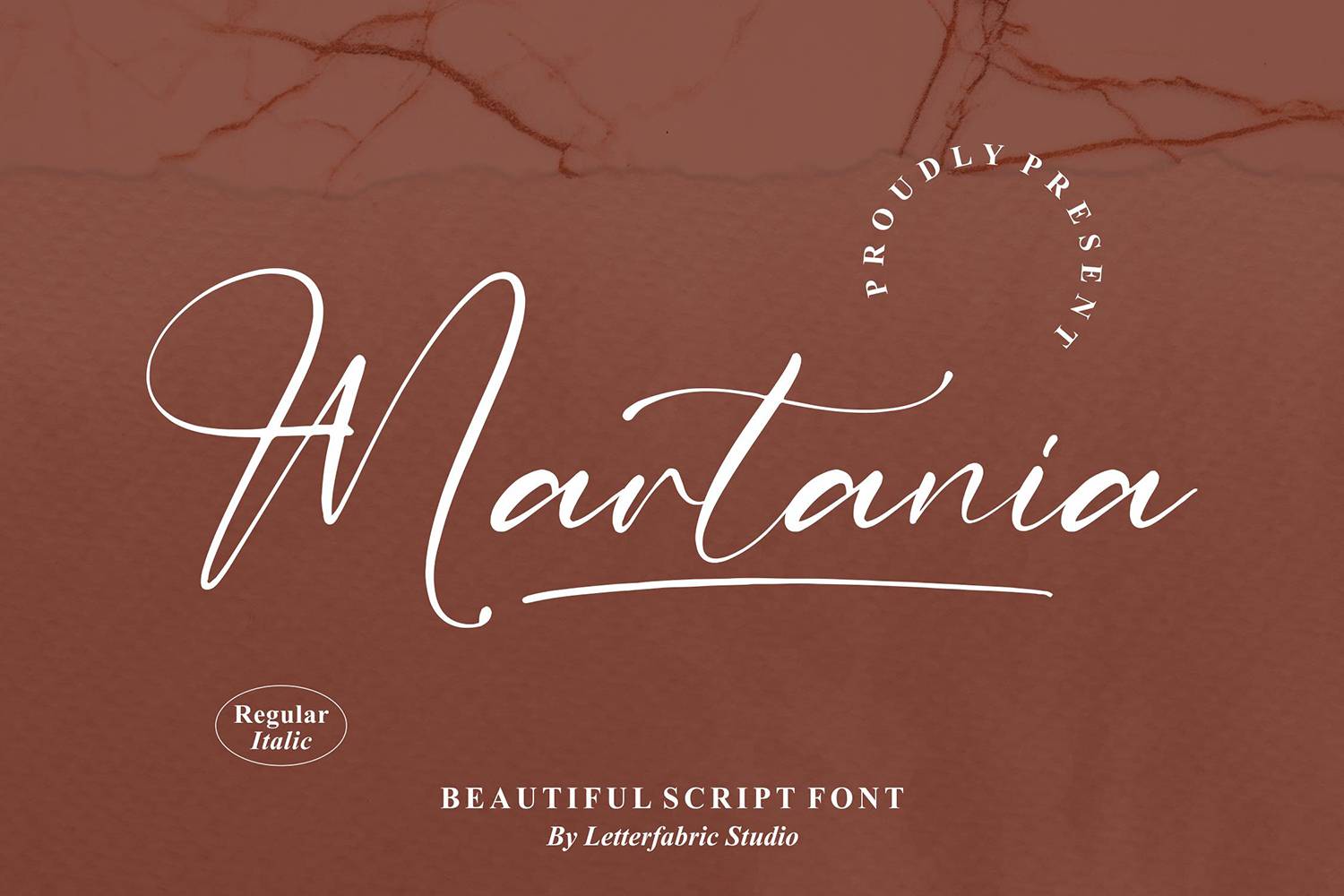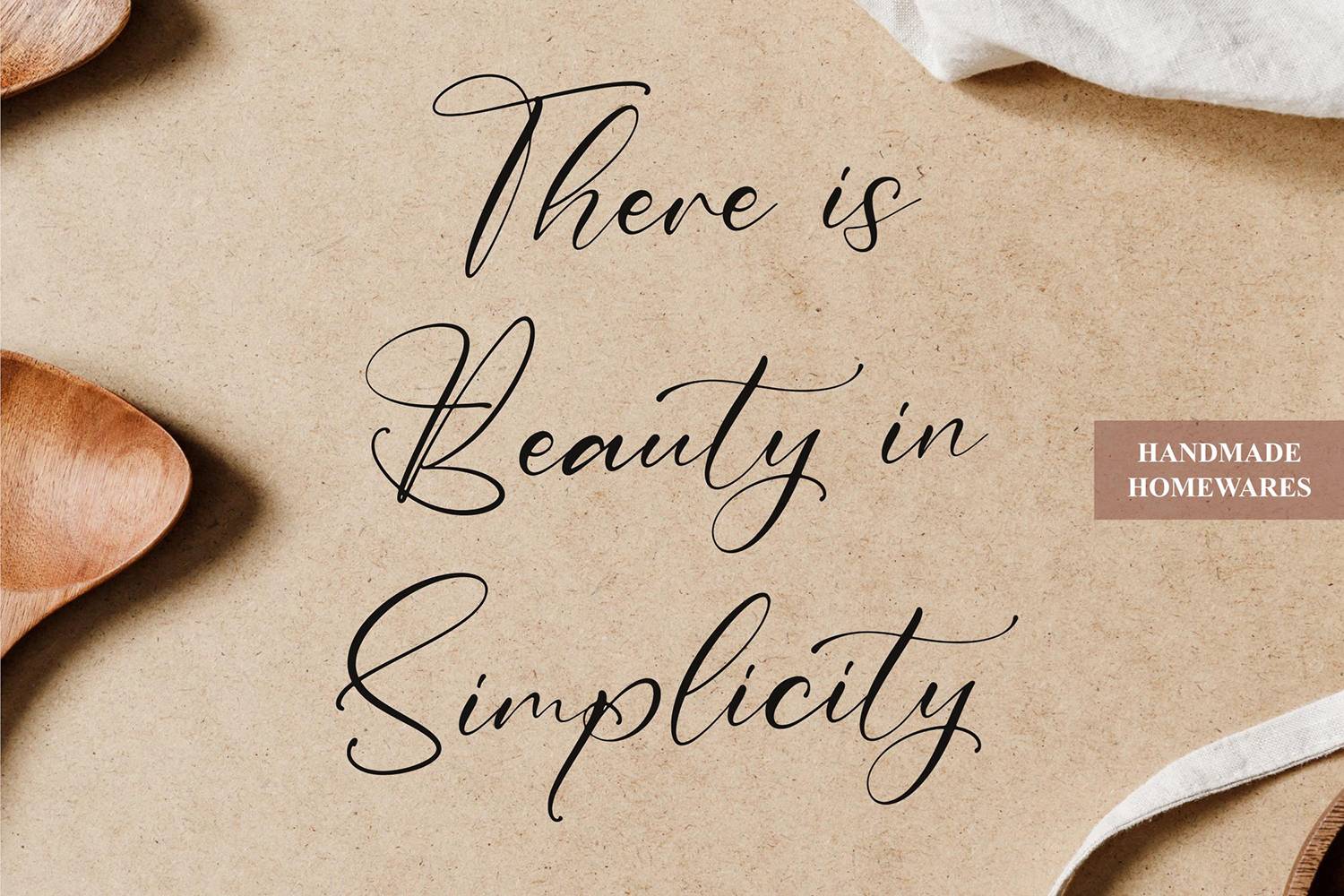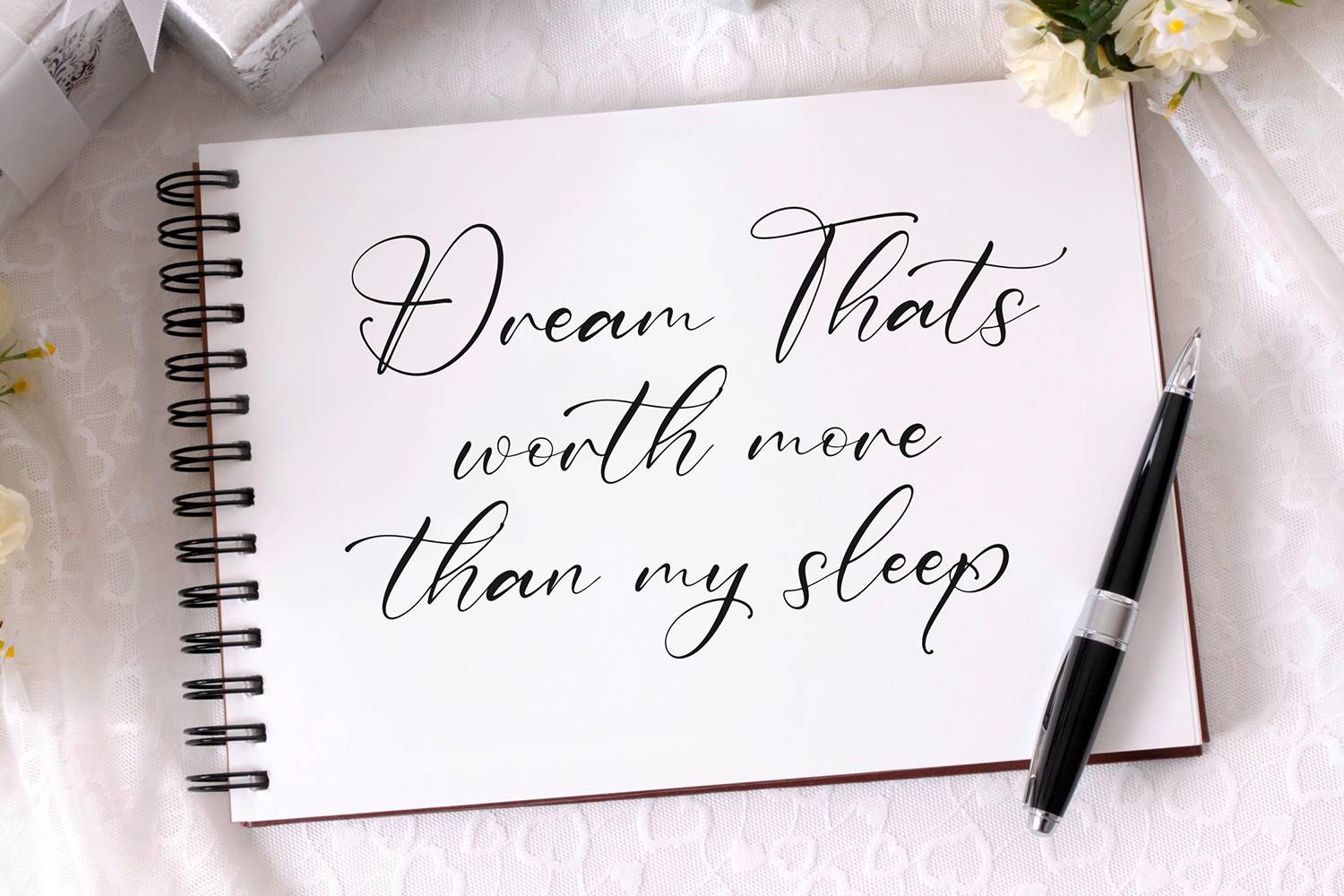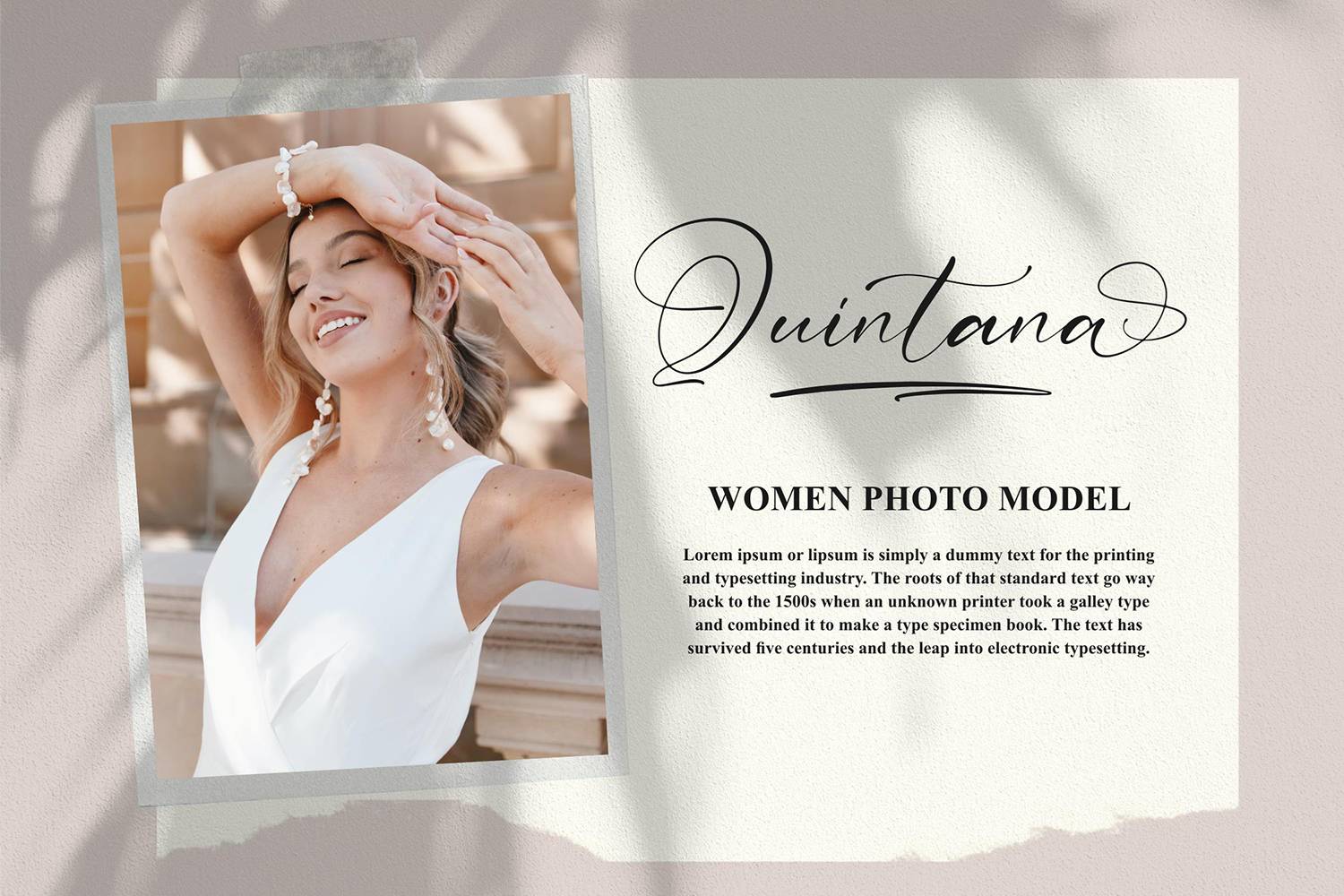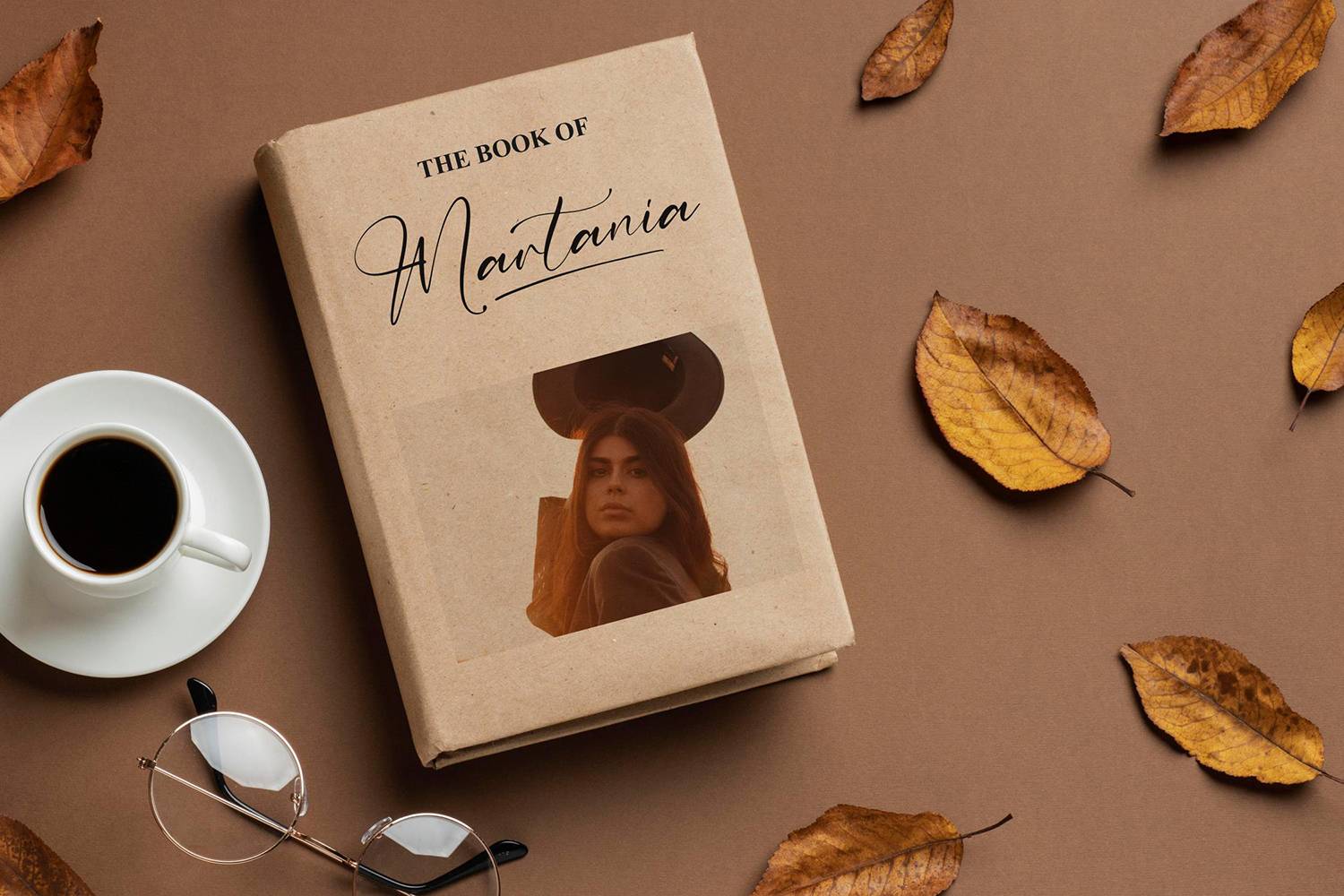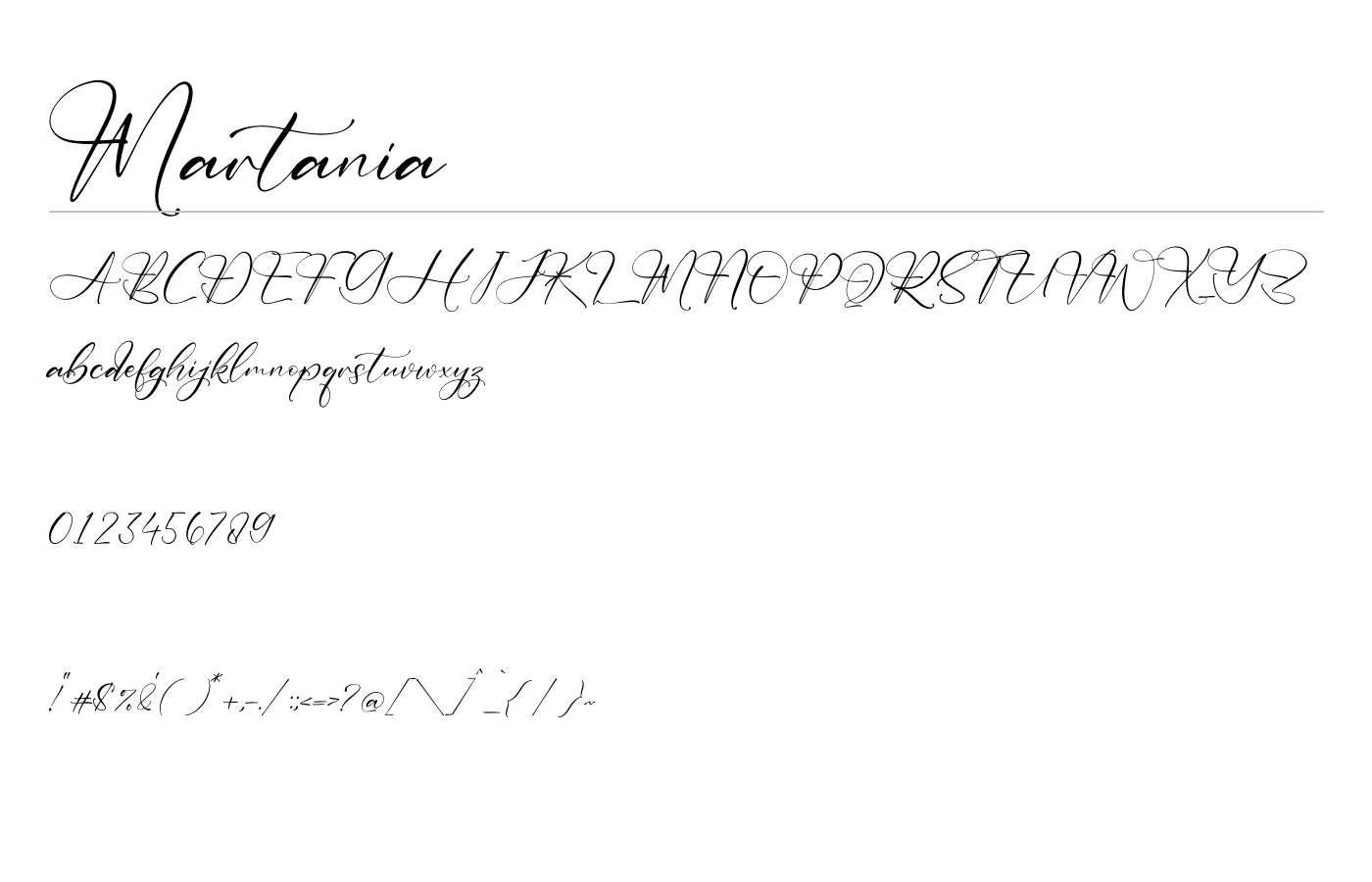
Martania is an elegant script font characterized by its delicate, flowing strokes and graceful flourishes that create a sophisticated, handwritten feel. Its fine weight and airy spacing make it perfect for luxury branding, wedding invitations, and stylish editorial designs where a refined, romantic touch is desired. With its stylish uppercase swashes and fluid lowercase letters, Martania beautifully conveys elegance and charm in any upscale or artistic context.
Martania Font
About Martania Font